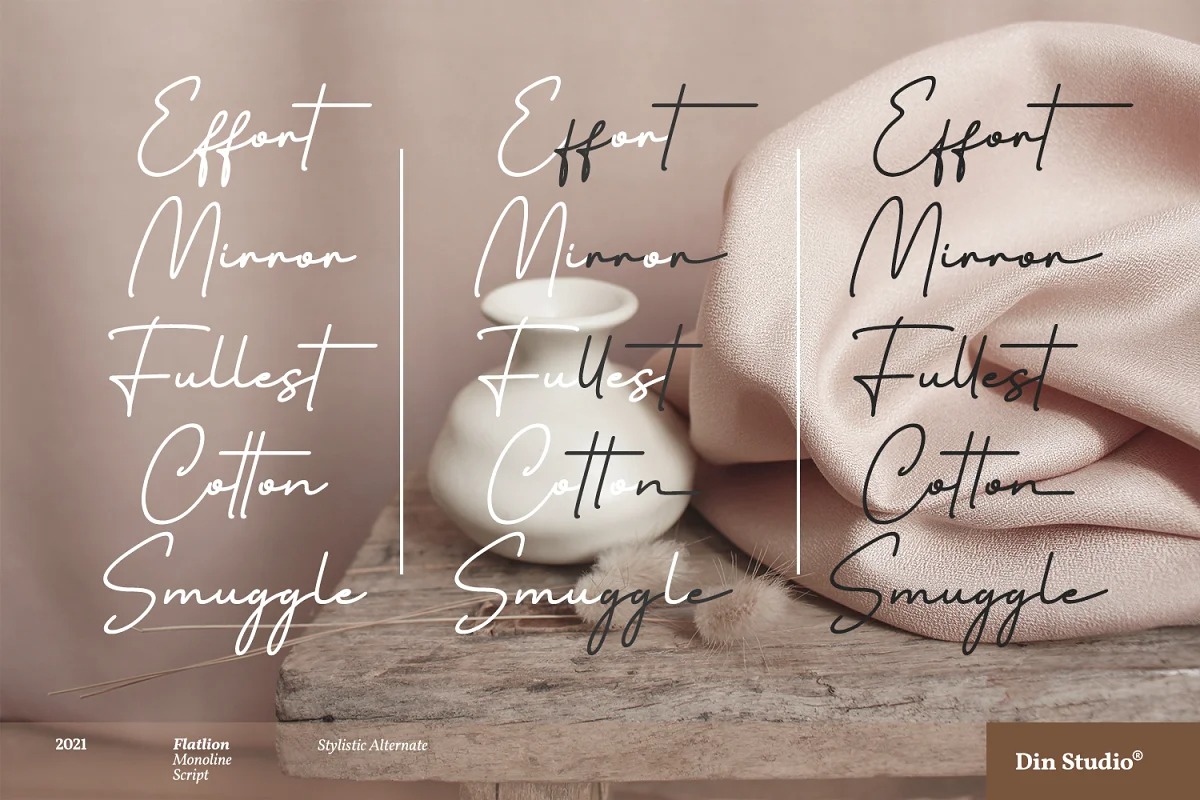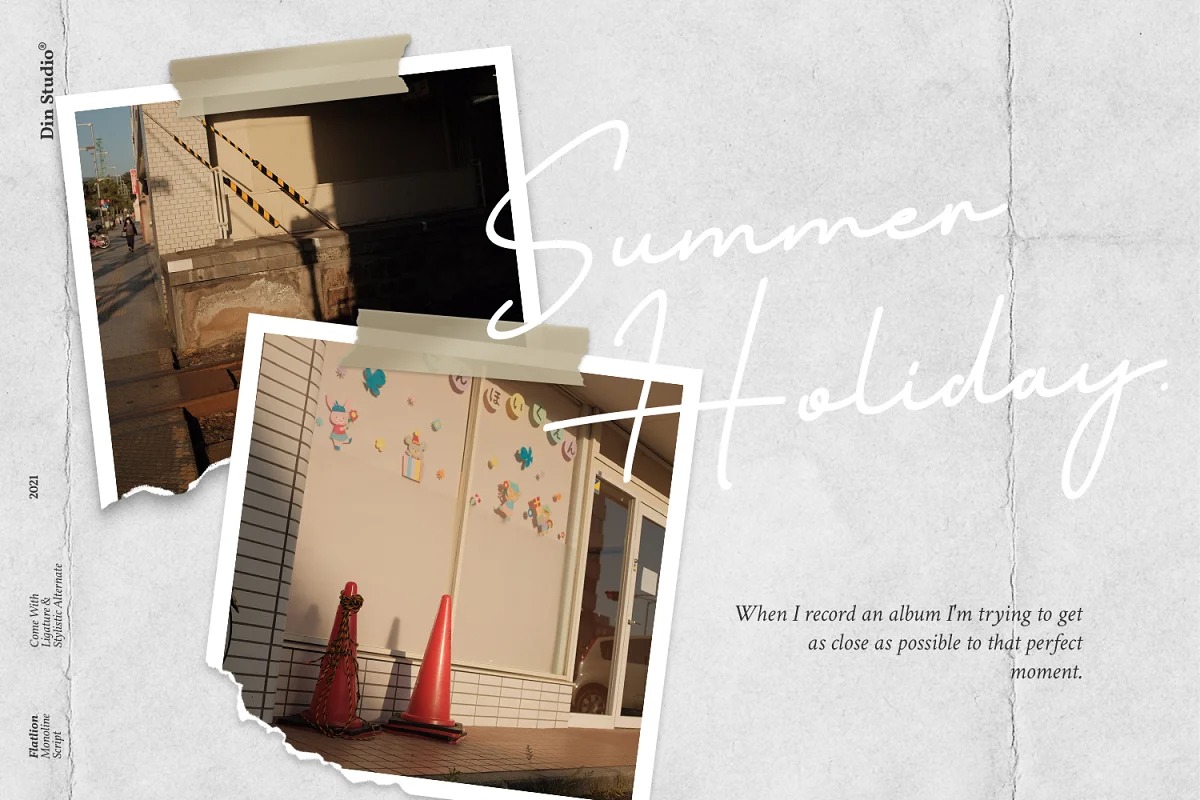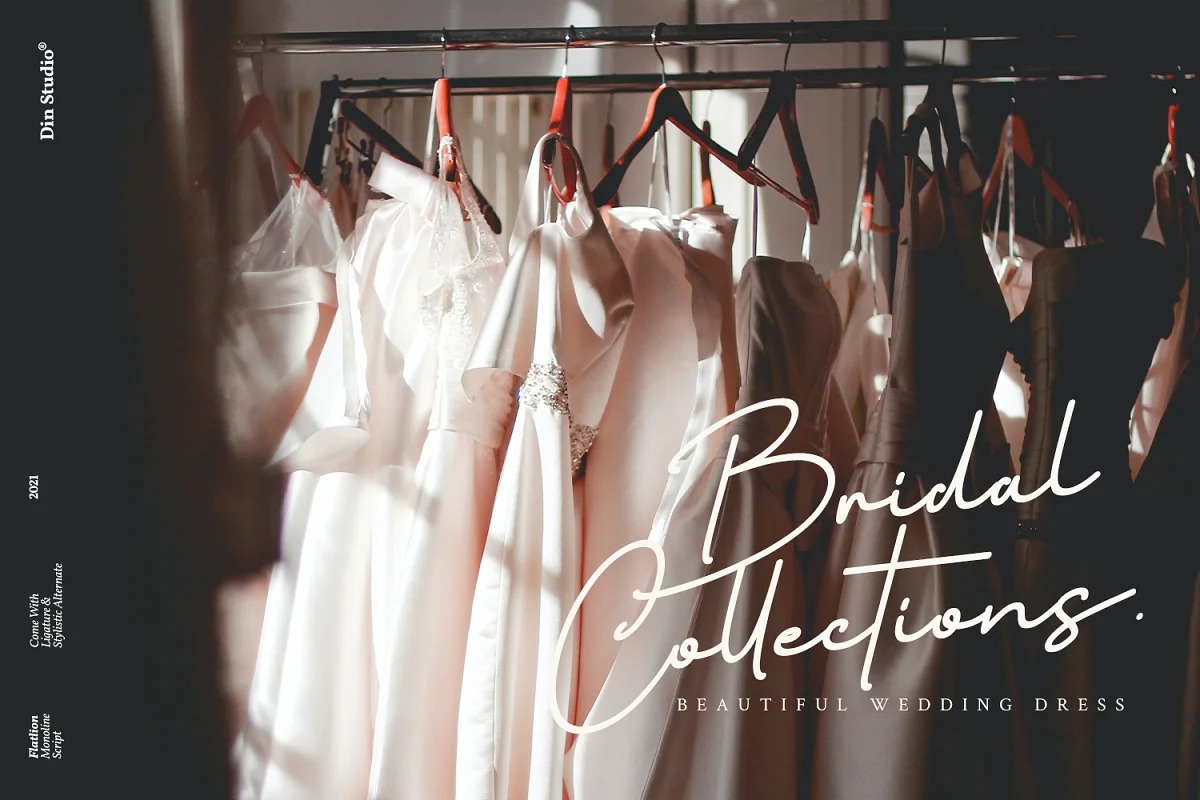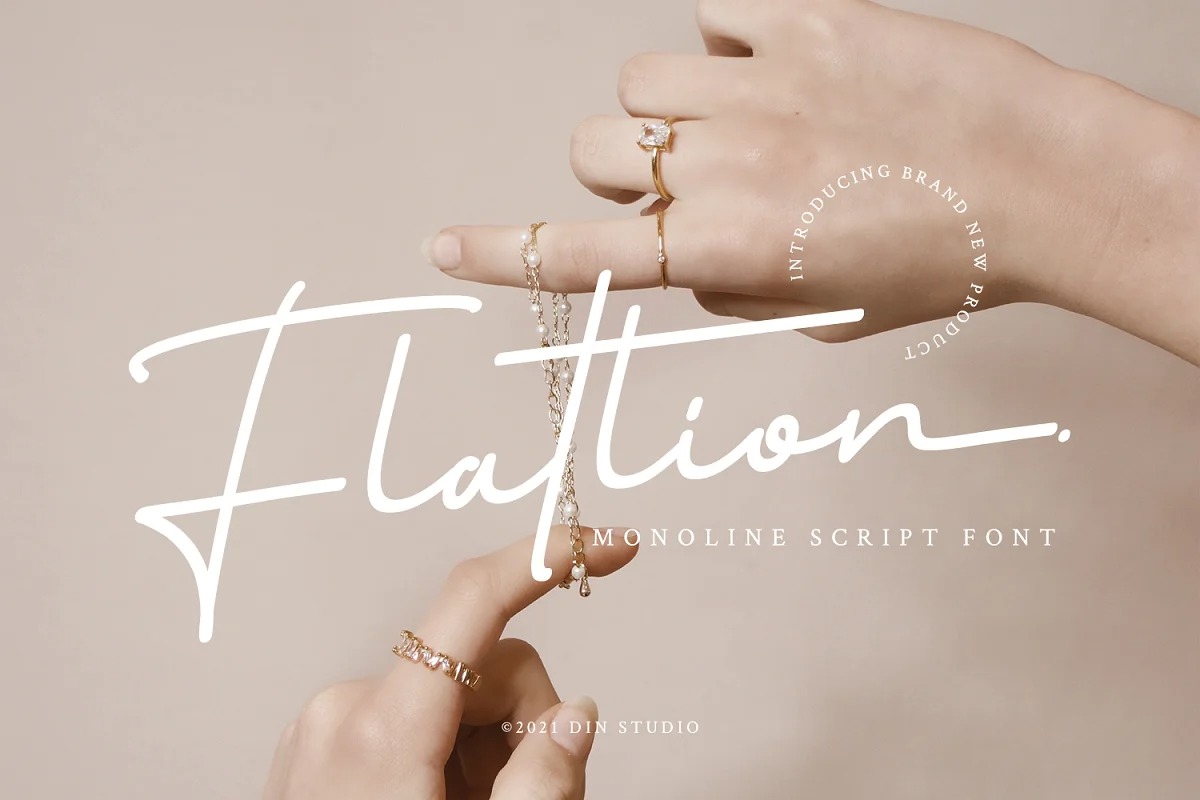
Flatlion Font
Flatlion Handwritten Font
This Font designed by Din Studio is a handwritten monoline script font that designed to fit perfectly for your project. This is a handcrafted with modern, elegant, simple yet angelic style. Every stroke and curve was created to capture the essence of elegance and style. It is perfect to be used for social media banners; posts, and ads, printed quotes, invitations, t-shirt designs, packaging, modern text overlay to any background image, and many more!